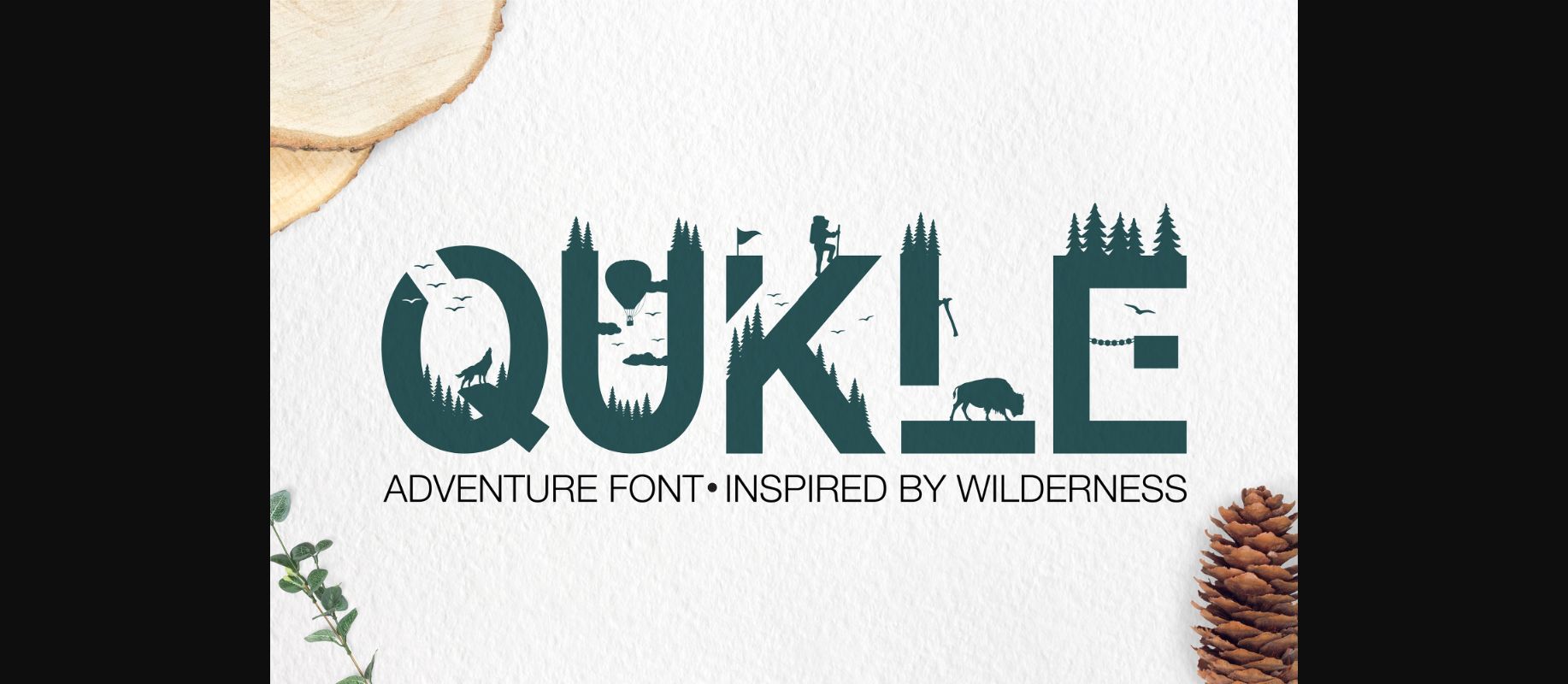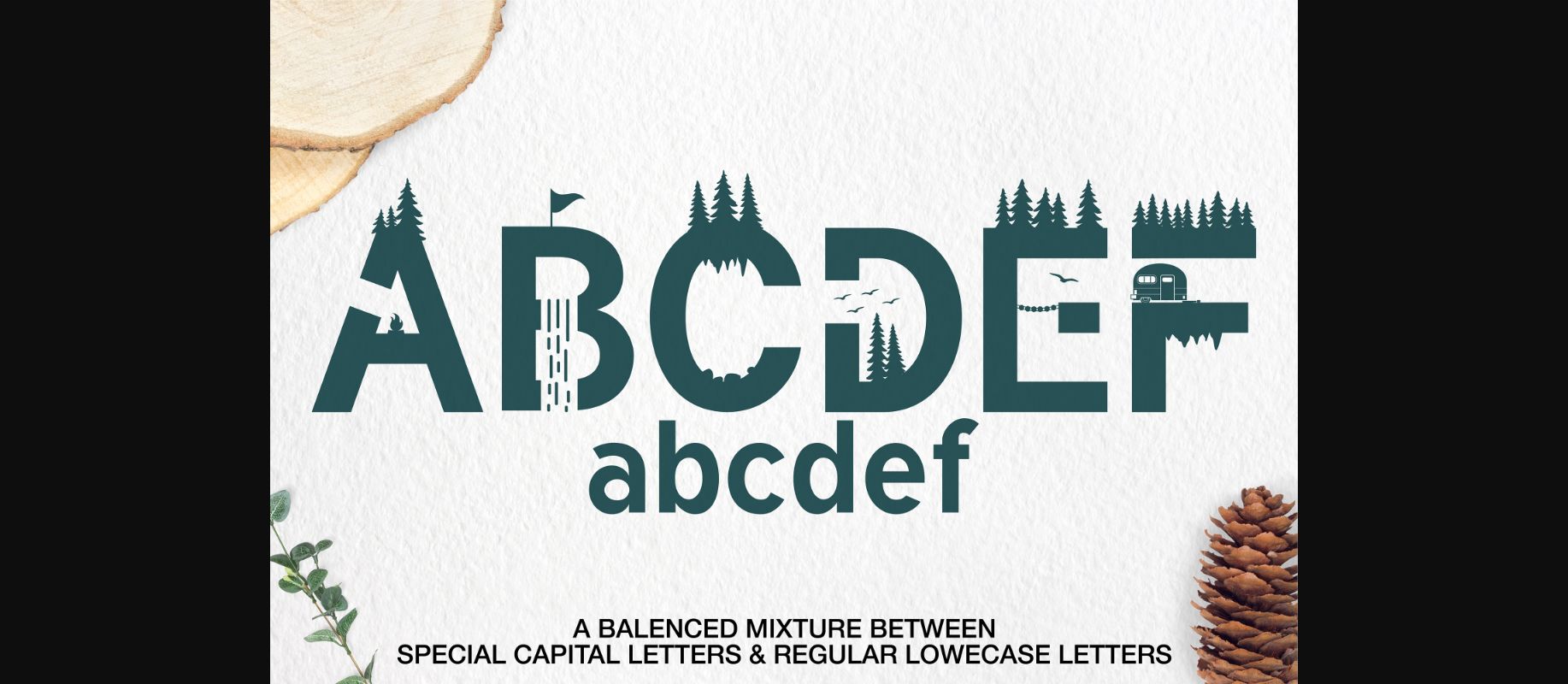
Qukle Font
About Qukle Font
Qukle it’s wild, it’s bold and it’s full of adventure! This decorative font is the perfect font for making original and outstanding designs.